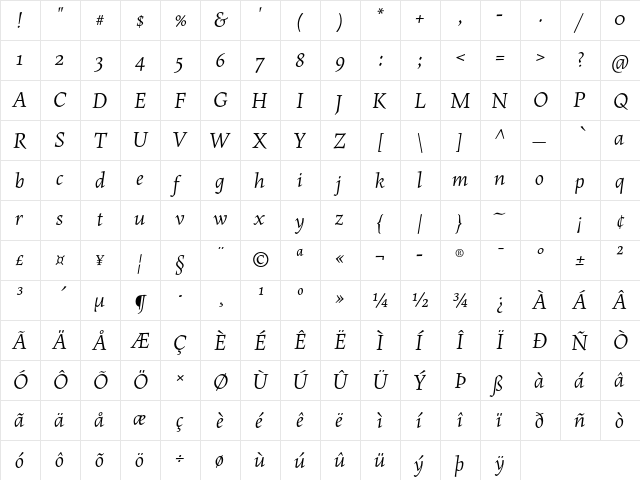
MaiolaPro Italic
| Foundry | FontShop International |
| Designer | Veronika Burian |
Design Context for MaiolaPro Typeface
MaiolaPro is a composed and adaptable typeface that performs quietly and consistently across a wide range of design contexts. Its italic angle brings a sense of urgency and motion to the letterforms.
Pro Tip: Use MaiolaPro for emphasis, pull quotes, and subheadings where its slanted energy can add rhythm to the layout.